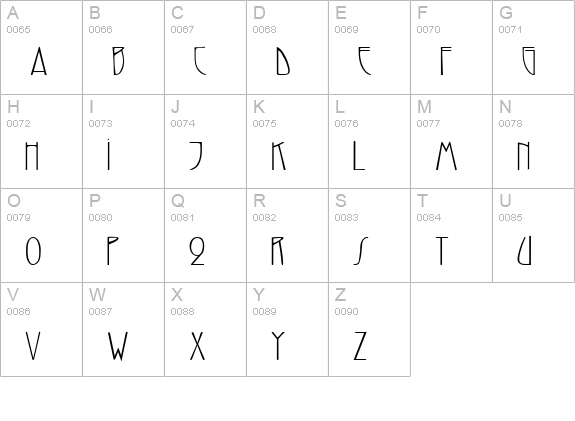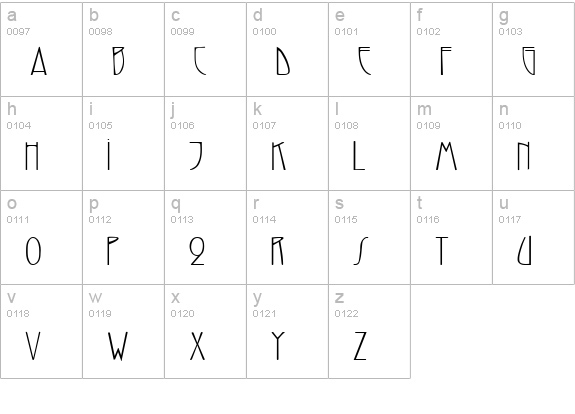
Reynolds Regular Font Details
Reynolds Regular is the standard, neutral variant in the Reynolds typeface family \xE2\x80\x94 well suited to general body text, paragraphs, and standard typographic work.
Reynolds Regular is a timeless font that exudes elegance and sophistication. Its clean and sleek lines make it a versatile choice for a wide range of design projects. Whether you're creating a logo, designing a website, or working on a print publication, Reynolds Regular will add a touch of class to your work. This font features a perfect balance between modernity and tradition. Its letterforms are carefully crafted to ensure legibility without sacrificing style. The slightly rounded edges give Reynolds Regular a warm and inviting feel, making it suitable for both formal and informal contexts. One of the best things about Reynolds Regular is that it is available for free download at FontsMarket.com. This means that you can easily access this premium font without any cost. FontsMarket.com is a trusted source for high-quality fonts, and Reynolds Regular is just one of the many gems you can find on their website. With Reynolds Regular, you have the freedom to bring your creative vision to life. Its versatility, elegance, and timeless appeal make it a must-have for designers and typographers alike. Whether you're a professional or a hobbyist, Reynolds Regular will elevate your designs to new heights. So don't miss out on this incredible font – download it for free at FontsMarket.com and start creating stunning visuals today.